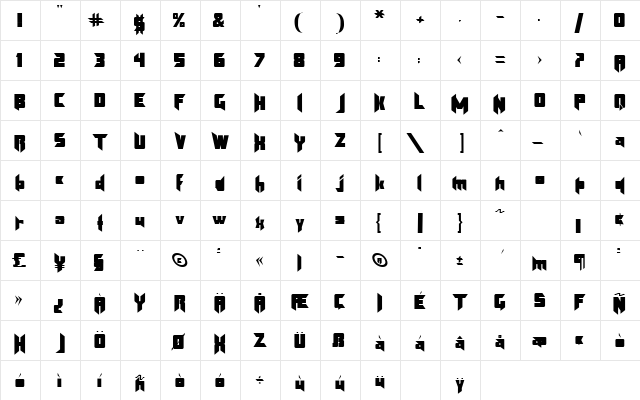
Klingon Regular Font Preview
Klingon Regular
Design Context for Klingon Typeface
Klingon is a composed and adaptable typeface that performs quietly and consistently across a wide range of design contexts.